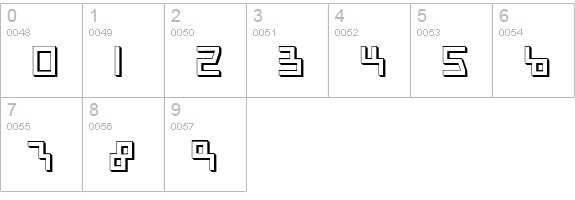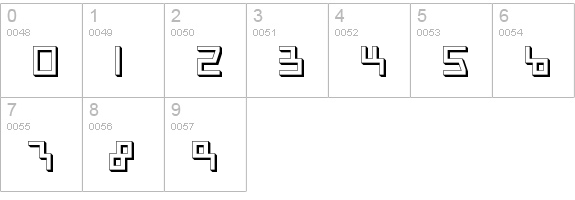
Introducing Beam Rider 3D font - a futuristic and dynamic typeface that will transport your designs into the realm of cutting-edge innovation. Its sleek and bold 3D effect adds depth and dimension, making any text stand out with a modern flair. Perfect for projects that require a touch of sci-fi or a high-tech aesthetic, Beam Rider 3D font exudes a sense of energy and movement that captivates the viewer. And the best part? Beam Rider 3D font is available for free download at FontsMarket.com! Embrace the future of typography and elevate your designs with this visually striking font that is sure to make a lasting impression. Whether you're working on branding, posters, or digital graphics, Beam Rider 3D font will take your creations to new heights. Download it today and let your creativity soar!